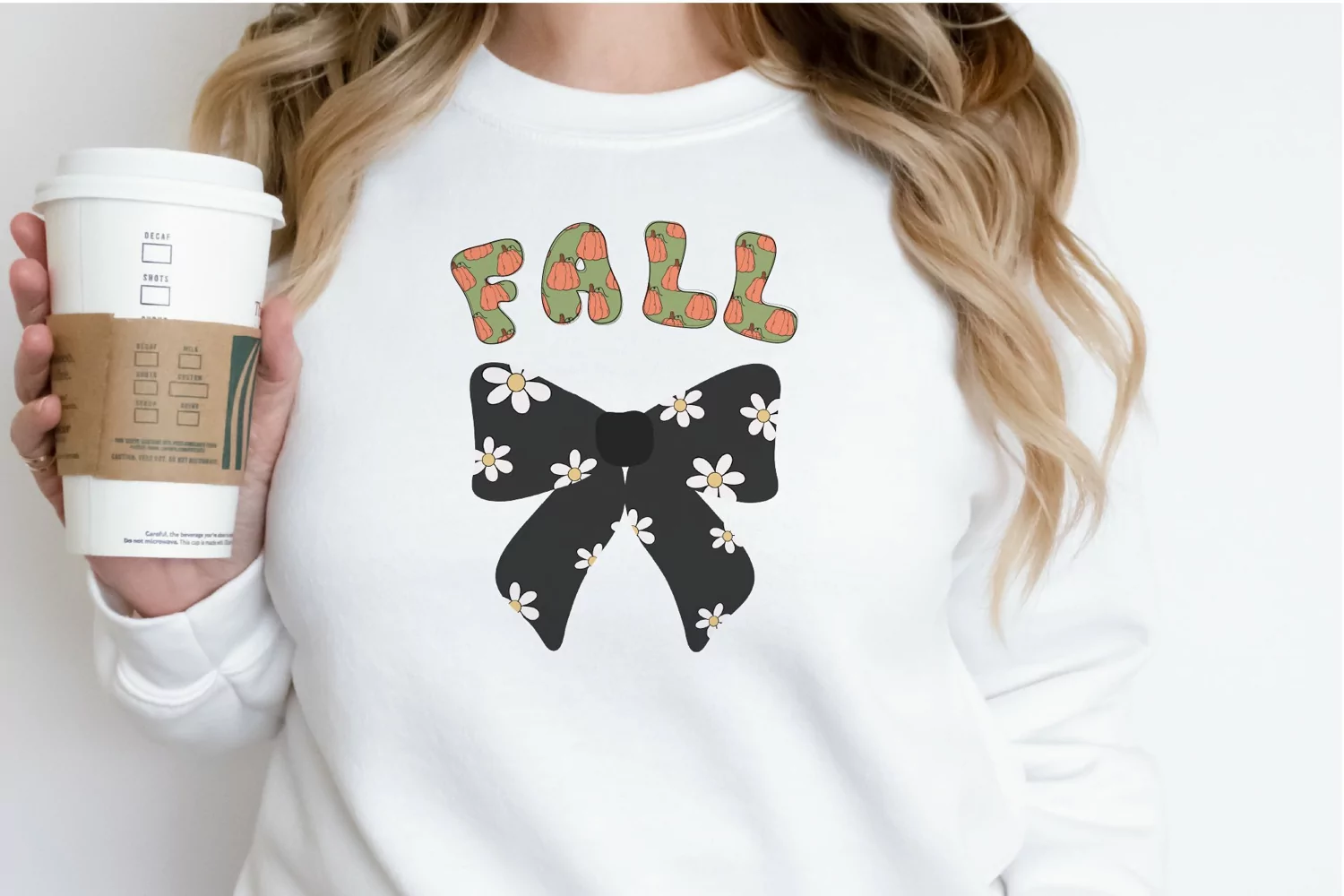
Autumn Vibes
Autumn Vibes Color Fonts Creative Alphabet Fonts for Festive Designs, Trendy Handwritten, Display & Decorative StylesEnhance your festive designs with our creative alphabet fonts! Choose from trendy handwritten, display, and decorative styles for invitations, logos, posters, and more.